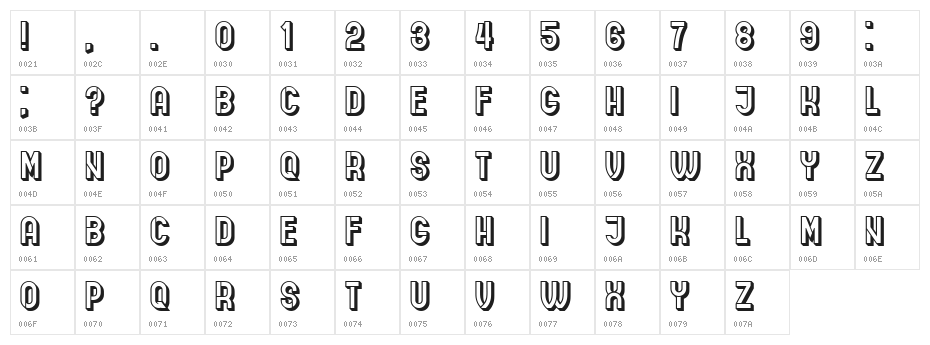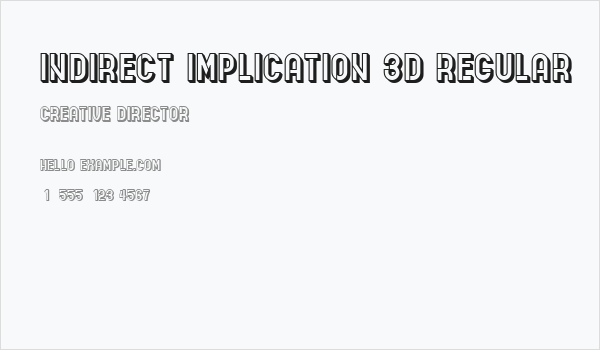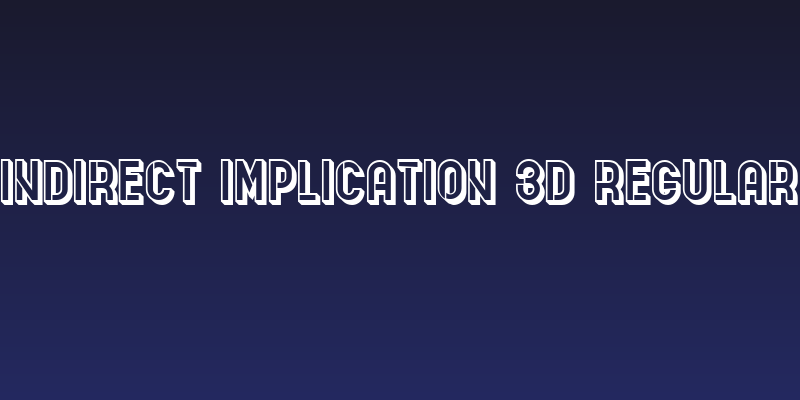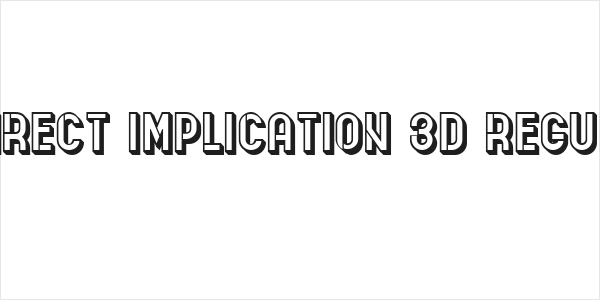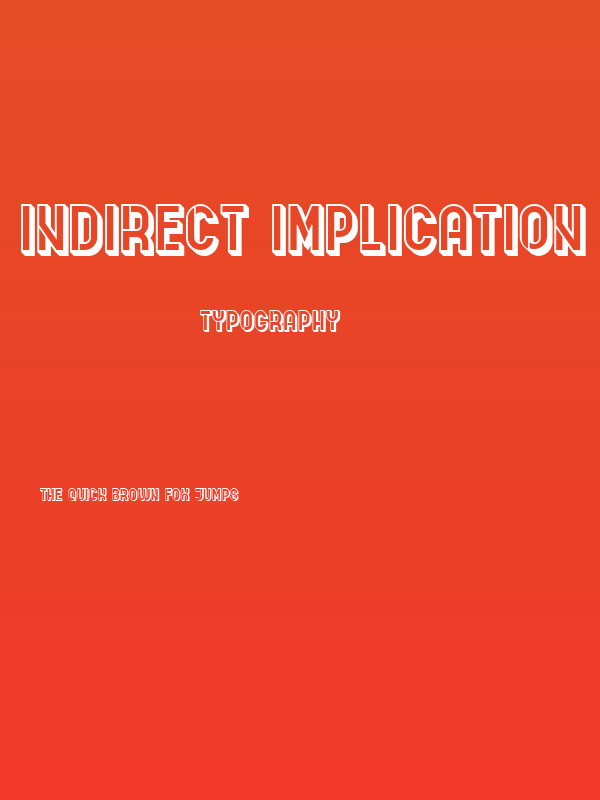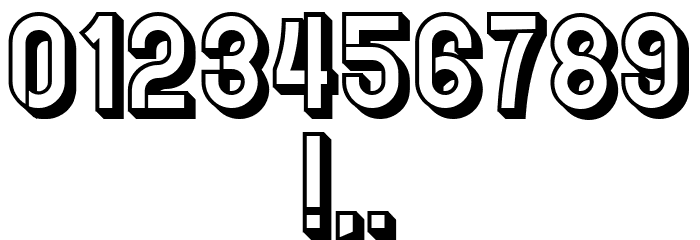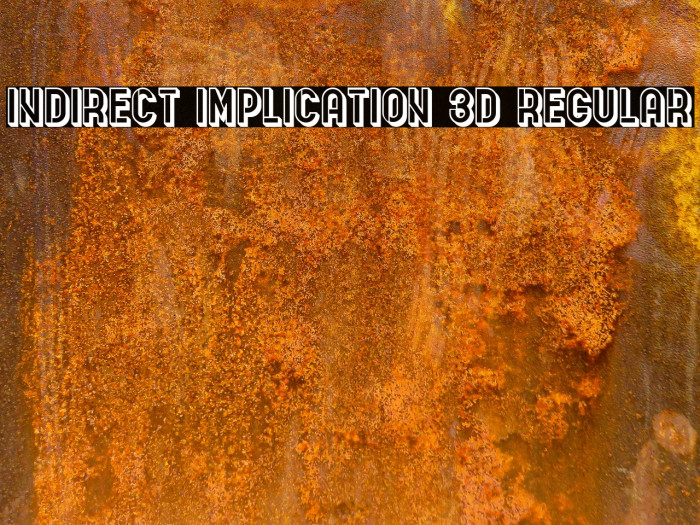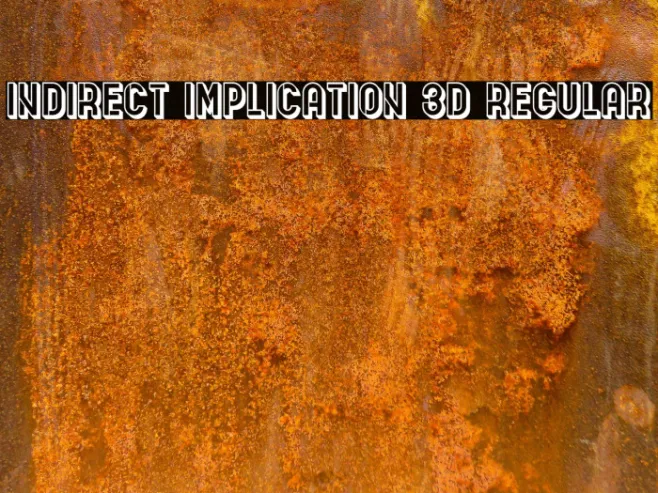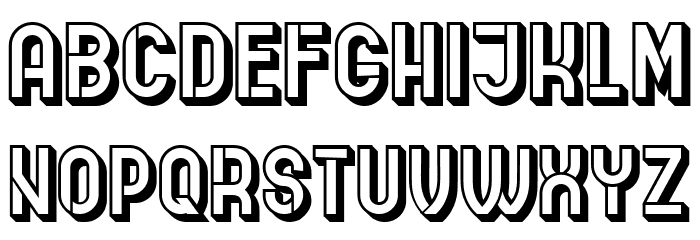
Indirect Implication 3D Regular Font
Indirect Implication 3D Regular Description
This font features a bold, three-dimensional design with a strong visual impact. The characters are outlined with a shadow effect, giving them a sense of depth and presence. The uppercase letters are uniform in height and width, creating a cohesive and structured appearance. The numbers and special characters maintain the same 3D style, ensuring consistency across all elements. The font's geometric shapes and clean lines make it suitable for modern and dynamic designs, while the shadow effect adds a touch of playfulness and creativity.
| Proposed Projects | Ideal for posters, headlines, logos, and any design requiring a bold, eye-catching typeface. |